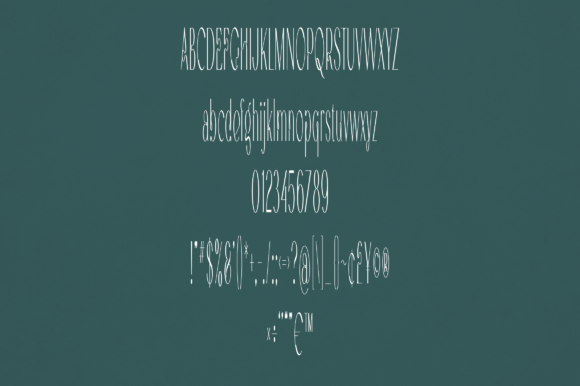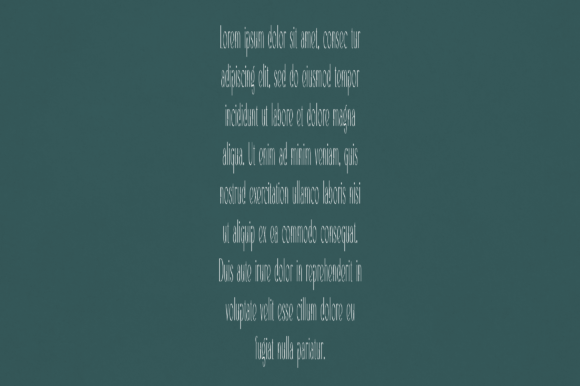
Fajra Font: Elevate Your Typography with Elegance and Versatility
In the world of typography, a font can make or break the visual appeal of a design. For designers and crafters looking to add a touch of sophistication and uniqueness to their projects, Fajra Font is an excellent choice. This elegant and versatile font is designed to make your typography truly stand out, whether you’re working on a logo, branding, headline, or plain text.
The Charm of Fajra Font
Fajra Font is more than just a typeface; it’s a design element that can transform your projects with its distinctive charm. Its elegant lines and versatile design make it suitable for a wide range of applications, from branding projects and home-ware designs to product packaging and magazine headers. The font’s unique character is capable of enchanting every piece of text it touches, turning ordinary designs into extraordinary ones.
One of the key benefits of Fajra Font is its versatility. It’s a font that can adapt to various design needs, making it an ideal choice for:
- Branding Projects: Create a lasting impression with a unique and elegant font that reflects your brand’s personality.
- Home-ware Designs: Add a touch of sophistication to your home-ware designs, making them stand out with Fajra’s distinctive style.
- Product Packaging: Elevate your product packaging with a font that combines elegance and readability.
- Magazine Headers: Grab the attention of your readers with captivating headers that showcase Fajra’s beauty.
- Text Overlay: Use Fajra as a stylish text overlay on any background image, adding depth and interest to your designs.
Why Choose Fajra Font?
Choosing Fajra Font for your design projects comes with numerous advantages:
- Uniqueness: Stand out from the crowd with a font that is both elegant and distinctive.
- Versatility: Use Fajra across various projects, from digital designs to print materials.
- Elegance: Add a touch of sophistication to your designs, making them more appealing to your audience.
- Readability: Despite its elegant design, Fajra maintains high readability, making it suitable for both headlines and body text.
Tips for Using Fajra Font Effectively
To maximize the impact of Fajra Font in your designs, consider the following tips:
- Pair with Simplicity: Let Fajra be the focal point by pairing it with simpler fonts or backgrounds.
- Experiment with Sizes: Play with different font sizes to create visual hierarchy and emphasis.
- Consider Color: Choose colors that complement Fajra’s elegant style, ensuring your text stands out.
- Be Creative: Don’t be afraid to experiment with Fajra in different design contexts to discover its full potential.
Fajra Font is a game-changer for designers and crafters looking to elevate their typography with elegance and versatility. Its unique charm, combined with its adaptability, makes it an excellent choice for a wide range of design projects. By incorporating Fajra into your design toolkit, you’ll be able to create stunning typography that captivates and engages your audience. Whether you’re working on branding, packaging, or digital content, Fajra Font is sure to make your designs truly unforgettable.